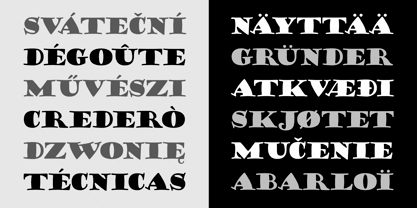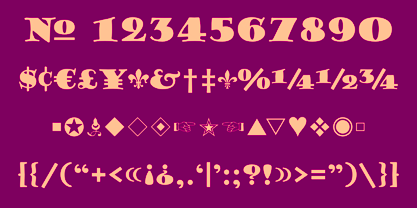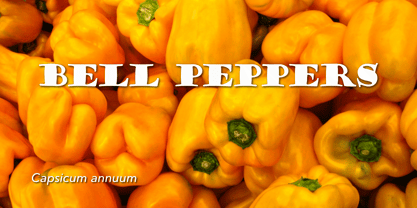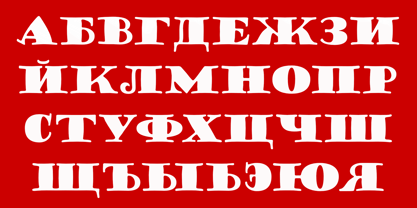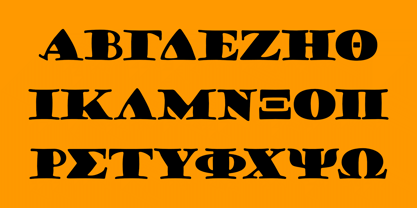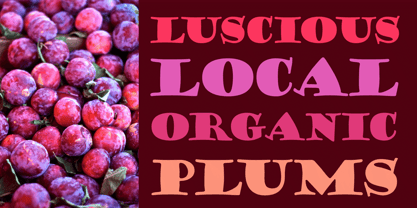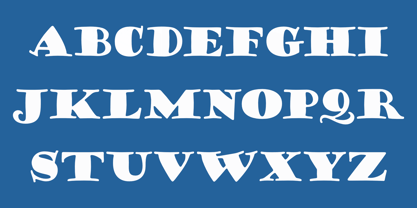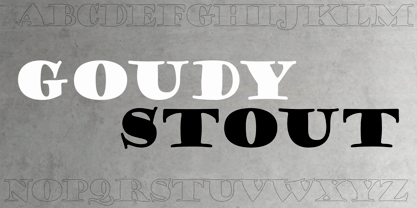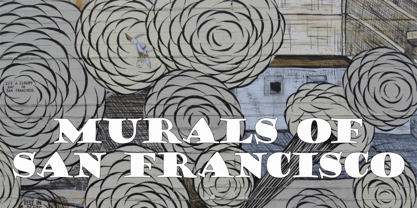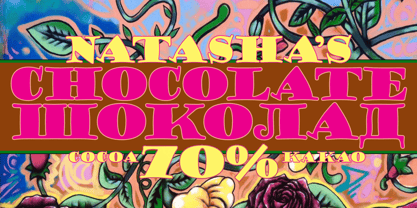
Goudy Stout CT
Die Schriftfamilie Goudy Stout CT wurde von Frederic W. Goudy, Jason Castle entworfen und von CastleType veröffentlicht. Goudy Stout CT enthält 1 Stile.
This face was recommended to me by Mark Solsburg, president of FontHaus. At first I was a bit reluctant to revive it, if for no other reason than Frederic Goudy’s admission that he created this design “in a moment of typographic weakness.” However, I put the sample that Mark sent me up on my bulletin board, and over a period of time, it grew on me. It finally got to the point that I had to recreate the face, and from the response that I’ve gotten, I’m glad I did! Uppercase only with numerals and punctuation.
Designer: Frederic W. Goudy, Jason Castle